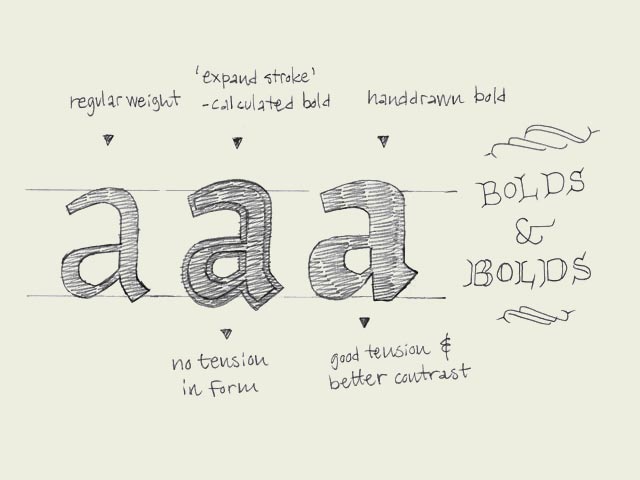
Bold-faced. Since the introduction of the computer, type design has become available to a wide audience like never shown before in history. Of course the digitalization makes many acts easier and particularly faster. This doesn't mean it automatically gets better, but that's another story. For example, many font software programs have included an option to 'bolden up' your regular weight. The outlines of the perfectly designed font get expanded, but the program is trying to fool you. That's not a bold. It's a limousine which got quickly extended by a local blacksmith. The contrast will probably be destroyed (see the second 'a' in the drawing). Doing this by hand will give a much more pleasurable result. No matter how well font software programs will improve in the future, there is only one thing that really counts in the end: your critical eye.